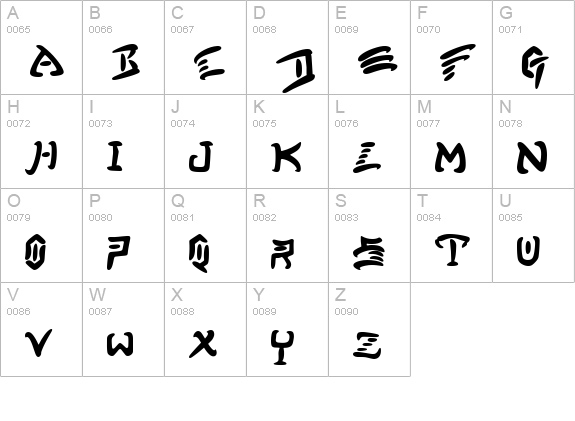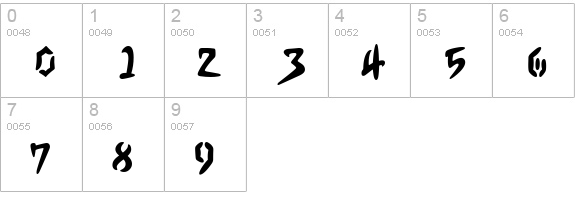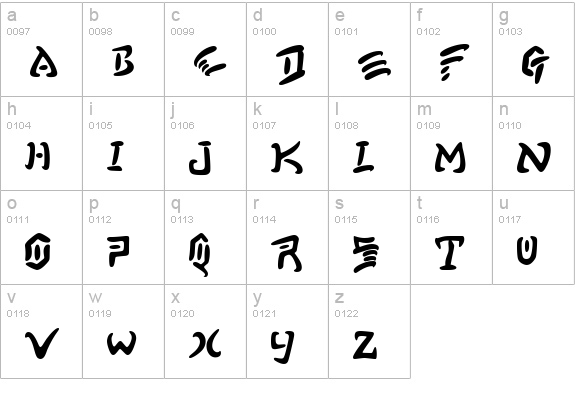
Skateandfont Font Details
Skateandfont is a dynamic and edgy font that captures the essence of the skateboarding culture. With its bold and graffiti-inspired letterforms, this font exudes a sense of urban energy and rebelliousness. Each letter is meticulously crafted to reflect the raw and gritty nature of skateboarding, making it the perfect choice for designs that demand attention and attitude. What sets Skateandfont apart is not only its striking aesthetics but also its accessibility. This font is available for free download at FontsMarket.com, allowing designers, artists, and enthusiasts to unleash their creativity without any constraints. Whether you're working on a skateboarding magazine, a streetwear brand logo, or a poster for an extreme sports event, Skateandfont will undoubtedly make a bold statement. Skateandfont's versatility is another aspect that makes it truly remarkable. Its uppercase and lowercase letters seamlessly blend together, allowing for seamless and engaging typography. The characters are designed with sharp angles, exaggerated curves, and unique embellishments, adding a touch of personality to any design. Furthermore, Skateandfont includes a wide range of special characters, including punctuation marks, numerals, and symbols, ensuring that your design remains consistent and visually appealing. The font's legibility is also optimized, making it suitable for both large-scale prints and digital mediums. With Skateandfont, you can effortlessly infuse your designs with the spirit of skateboarding. Whether you're aiming for a gritty and raw aesthetic or simply want to add an urban edge, this font will deliver. So why wait? Download Skateandfont for free at FontsMarket.com and elevate your design game to new heights.